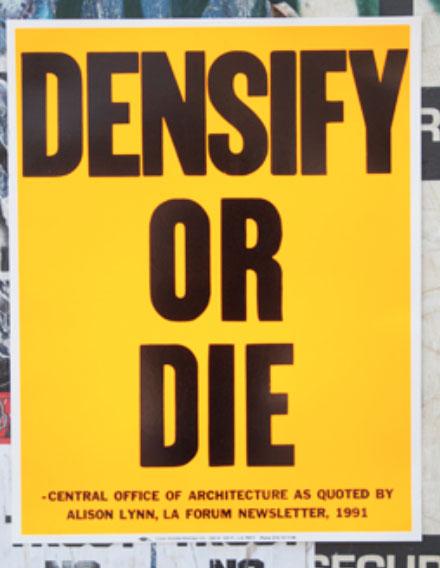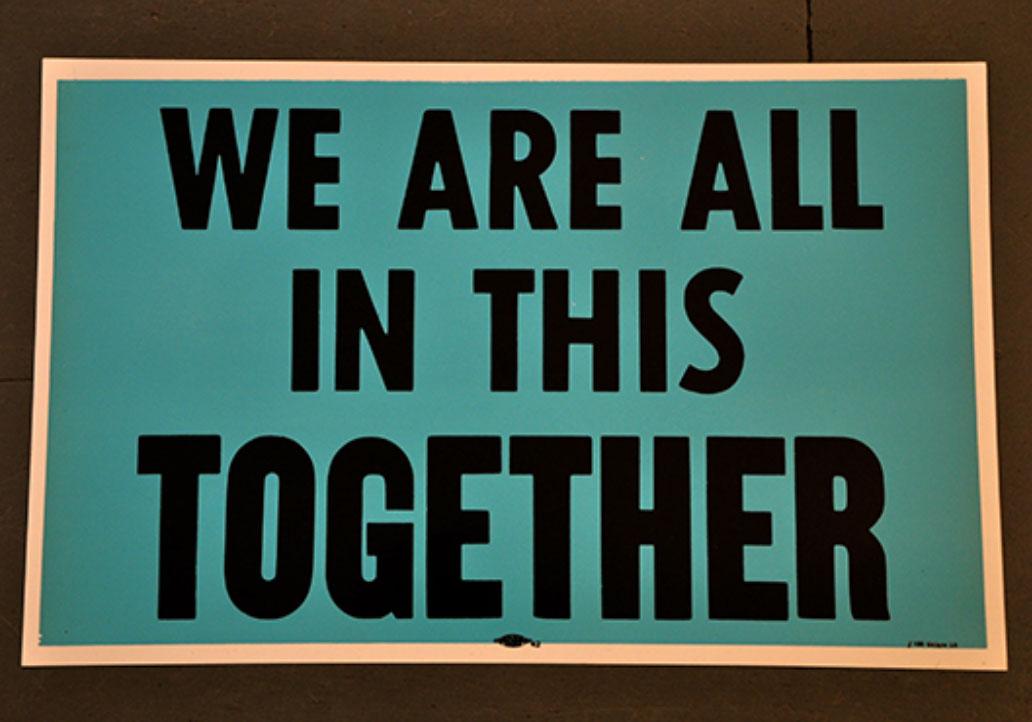
Colby Printing Company Font
I could sure use some help identifying this sans serif font that was used abundantly by the notable Colby Printing Company based in Los Angeles throughout the 90's. I was thinking Franklin Gothic Medium? It looks so common and yet I can't quite seem to find it. Any help is appreciated.
Colby Printing was a letterpress shop—the type was moveable (wood and metal), not digital.
Champion or Knockout by Hoefler & Co. are probably as close as you are going to get in a digital typeface.
Another option: Grotzec Condensed, by Feliciano.
In the top poster, “WE ARE ALL IN THIS” is not the same face as “TOGETHER”—for that face, Proxima Nova Extra Condensed would be a decent substitute.